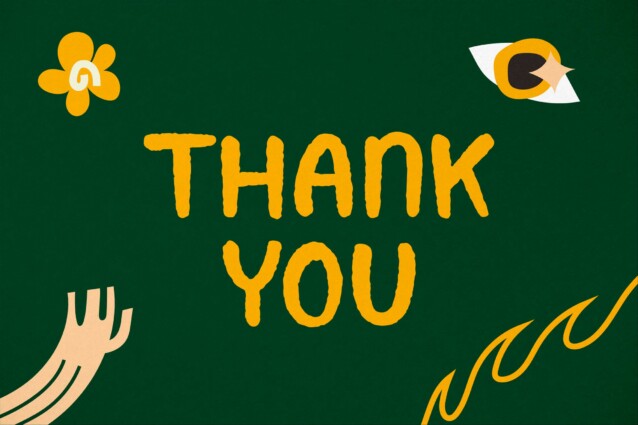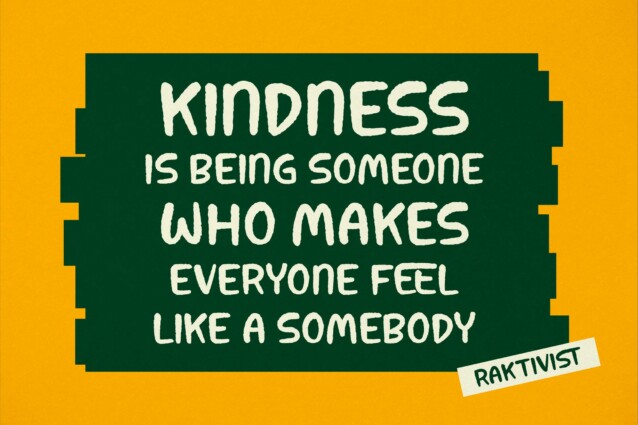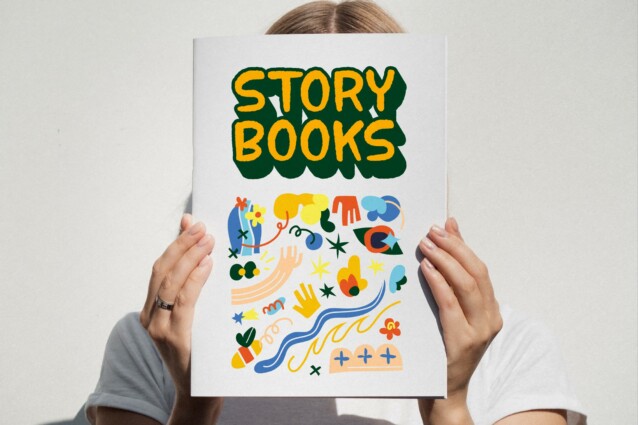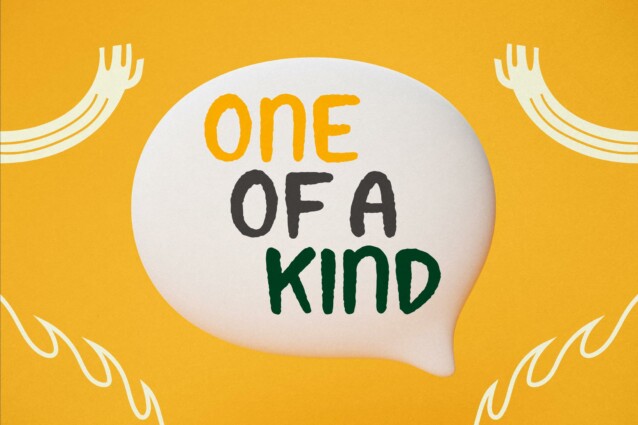
Klaverst Font is a Handbrush Display Font, suitable for any projects such as: logos, branding projects, homeware designs, product packaging, mugs, quotes, posters, shopping bags, t-shirts, book covers, name card, invitation cards, greeting cards, label, photography, watermark, special events, and all your other lovely projects that need a beautiful script taste.